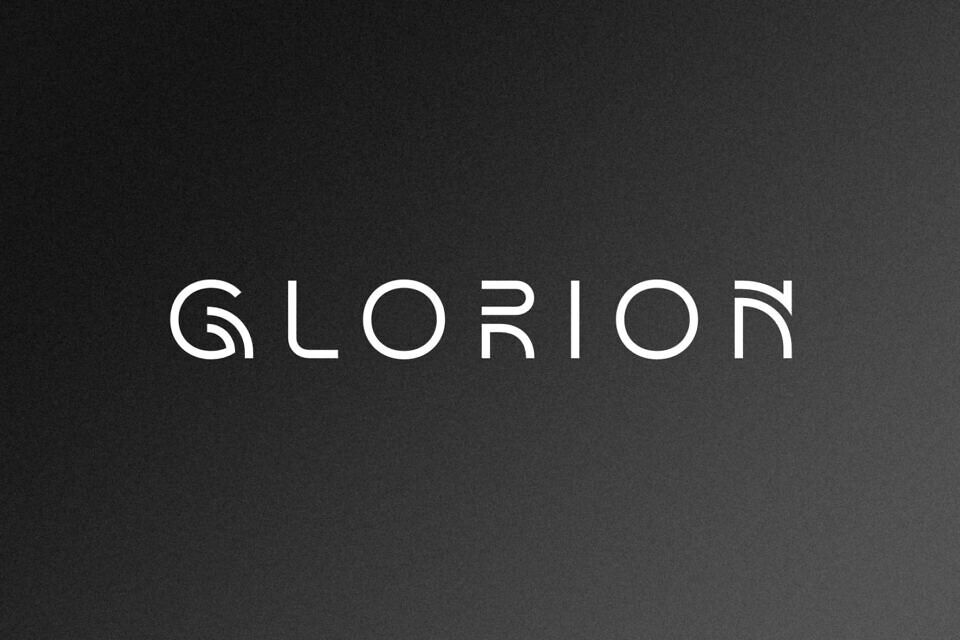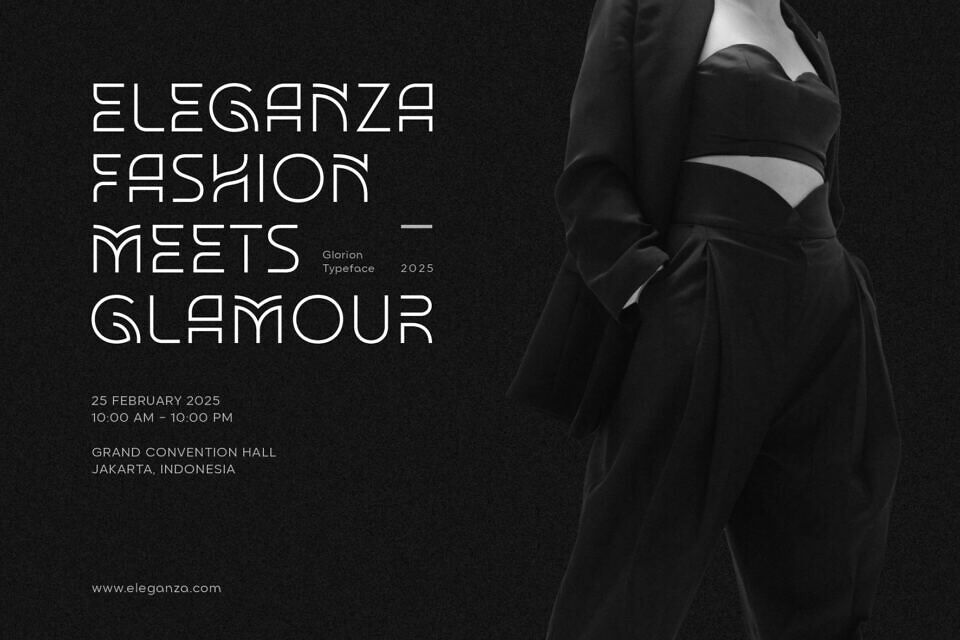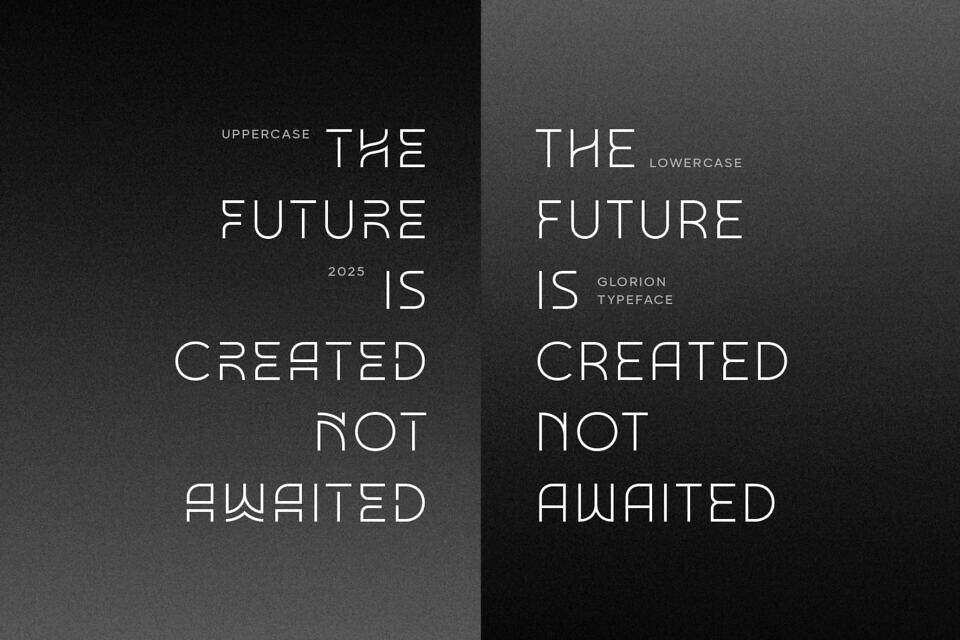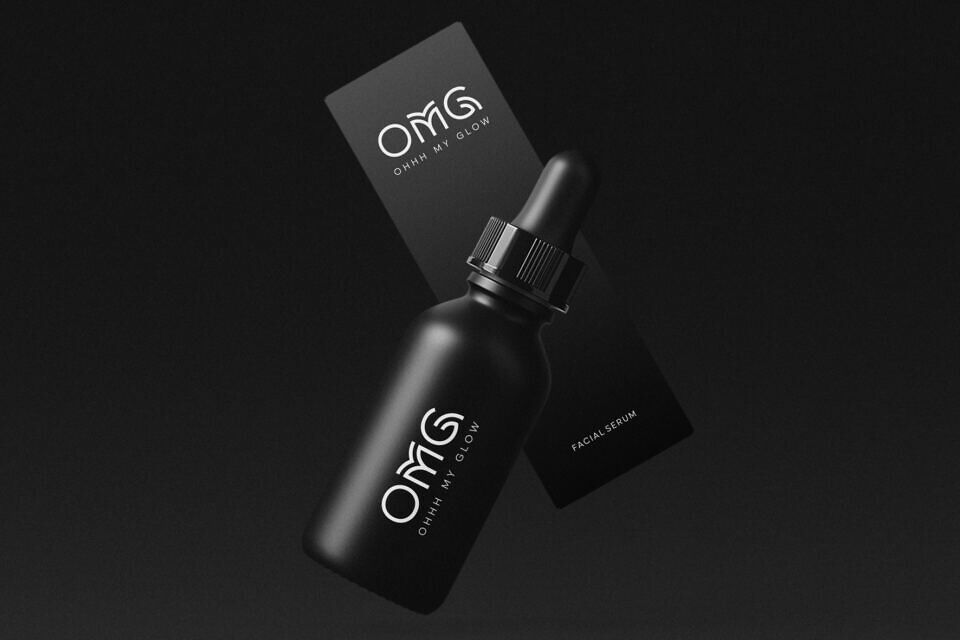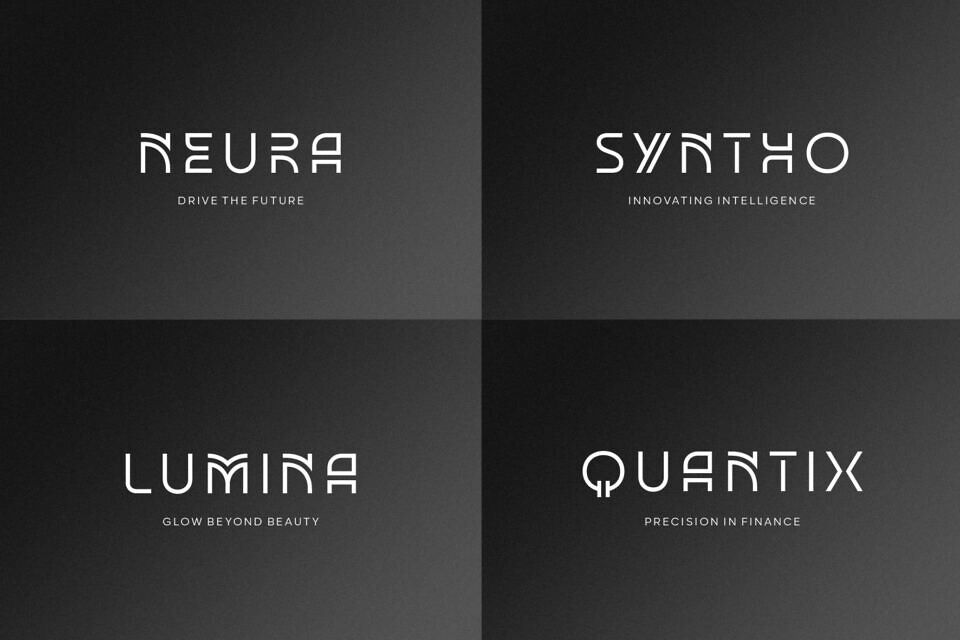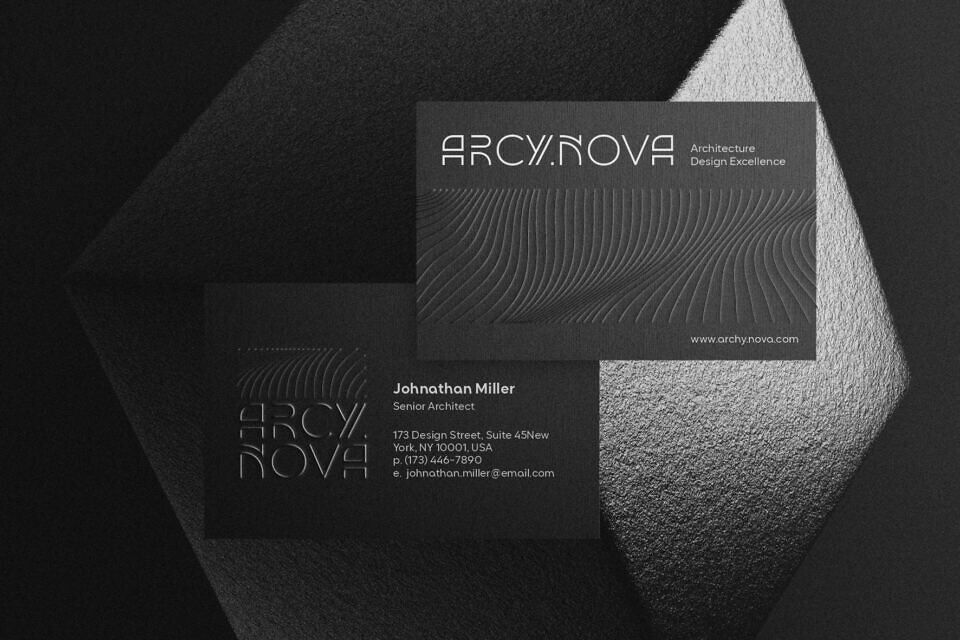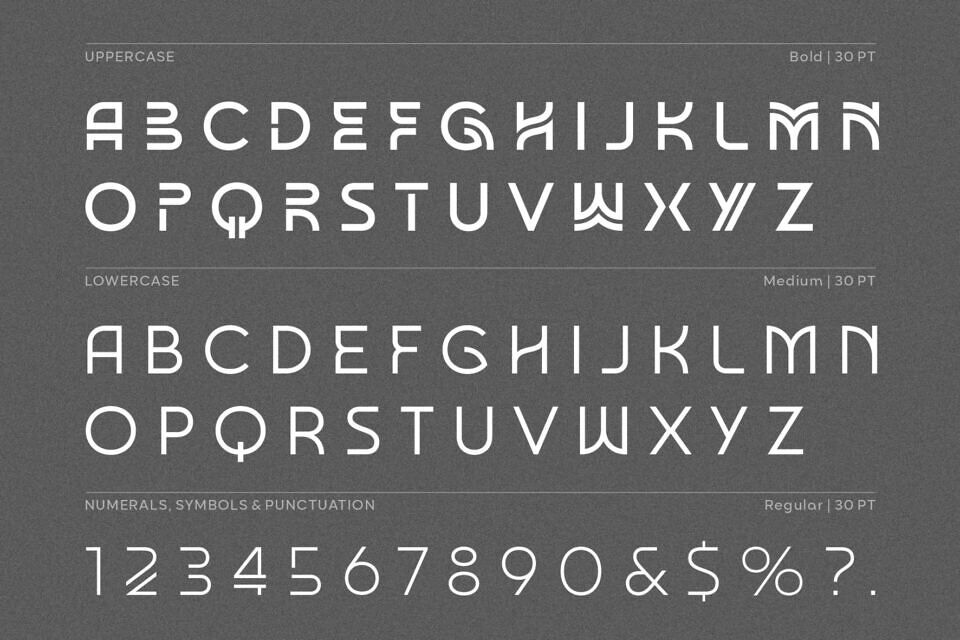
Glorion Font
Glorion is a modern sans-serif font that combines sleek elegance with versatile functionality, making it perfect for various design projects. Its precise geometric shapes create a modern, luxurious, and futuristic impression.
Each character features a clean and consistent design. Ideal for branding, editorial design, packaging, and more, Glorion is the ideal choice for any high-end project.